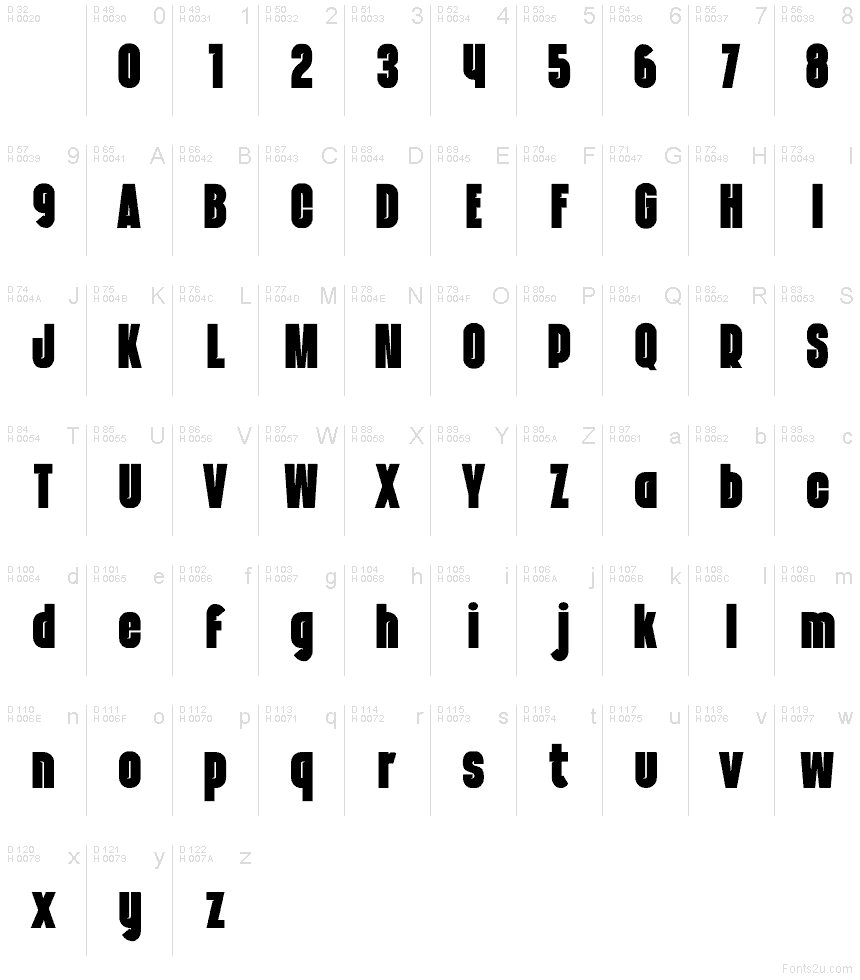
Marleone Brando DEMO
Marleone Brando font by Ikiiko Type embodies the ideal balance between classic serif influences, modern aesthetics, and a bold personality. The retro-flavored design results from its strong geometric structure enhanced by minimal decorative elements. This condensed sans serif is free for all users to enjoy through personal projects.
The main aim of this bold condensed typeface is to put any title in the spotlight with a particular vintage flair. It suits uses such as business card design, book covers, banners, printed ads, menus and magazine titles, packaging and label design, website design and UI/UX projects among others.